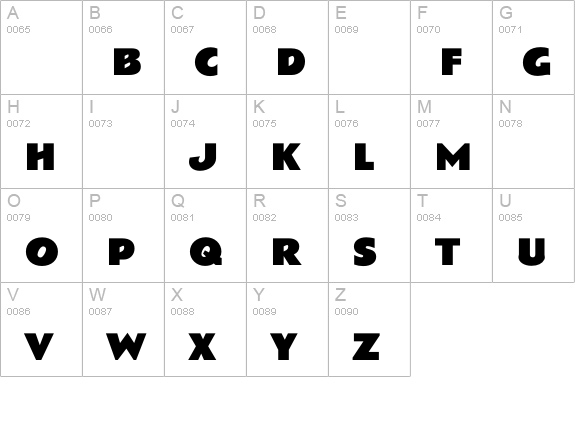
Bassuto Font Details
Bassuto font is a modern and stylish typeface that effortlessly combines elegance with readability. With its sleek lines and sophisticated curves, Bassuto is perfect for a wide range of design projects, from branding to editorial design. This versatile font exudes a sense of professionalism and sophistication, making it an ideal choice for any project that requires a touch of class. Best of all, Bassuto is available for free download at FontsMarket.com. Whether you're a designer looking to add a new font to your collection or a business owner in need of a fresh look for your branding, Bassuto is the perfect choice. Download Bassuto today and elevate your designs with this stunning and versatile typeface.